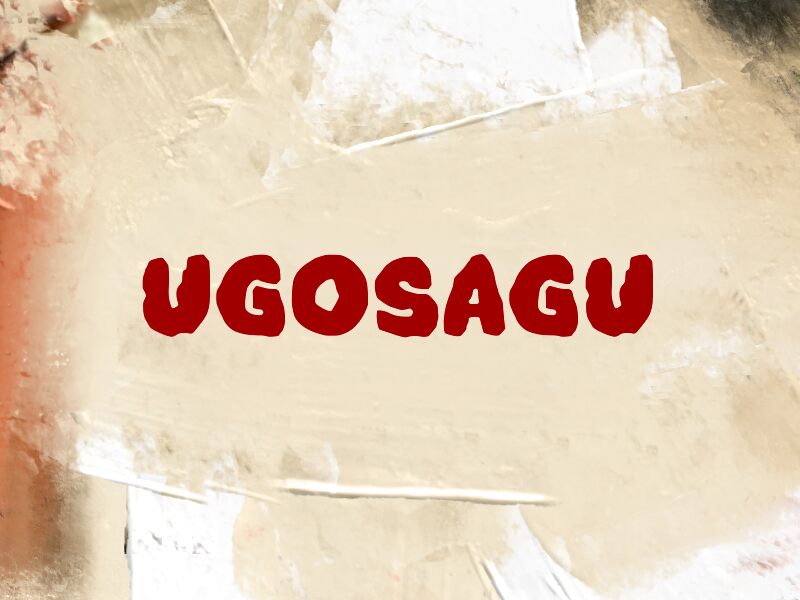
UGOSAGU
Ugosagu font by wep is a free cartoon display typeface with a blobby, hand-drawn feel that looks like it’s been painted in thick ink. The letters wobble and squish into each other, giving headlines a goofy, energetic bounce that instantly feels fun and informal. It reads like the title of a Saturday-morning show—bold, chunky, and impossible to ignore on a bright background.
Using Ugosagu, you can bring personality to kids’ book covers, game titles, birthday invitations, comic-style posters, toy packaging, and playful social graphics. This free font loves big sizes, where its inky edges and rounded forms can really show off. Pair it with a clean, light sans serif for small supporting text so the chunky cartoon style stays readable and the star of the layout.